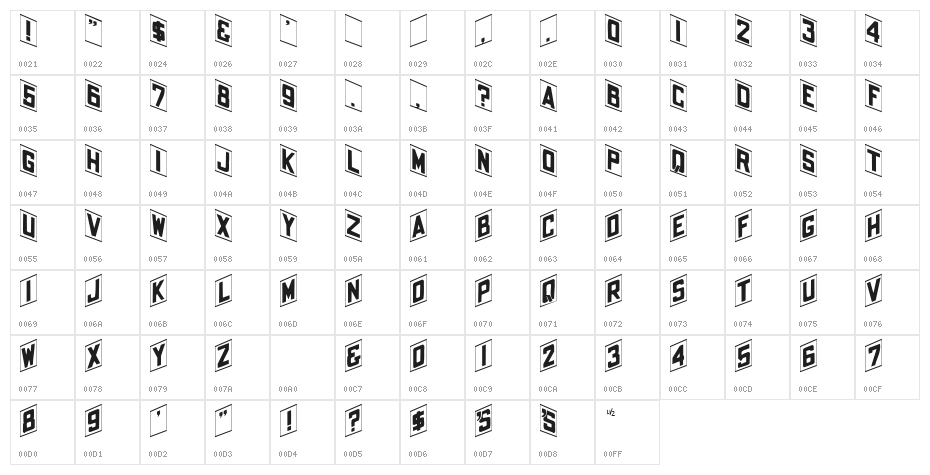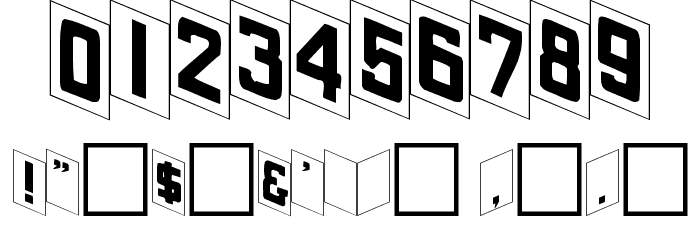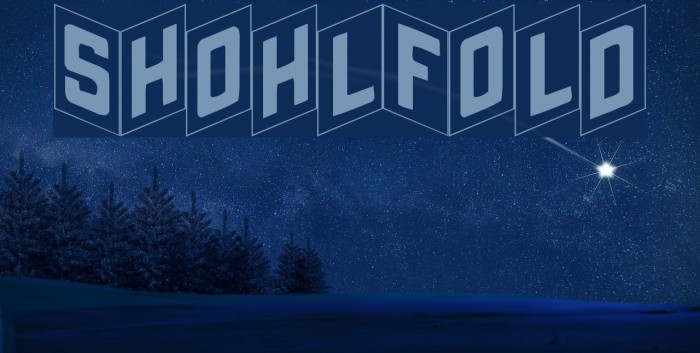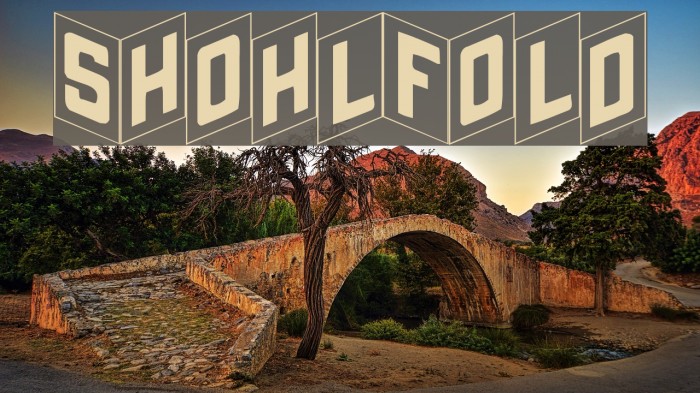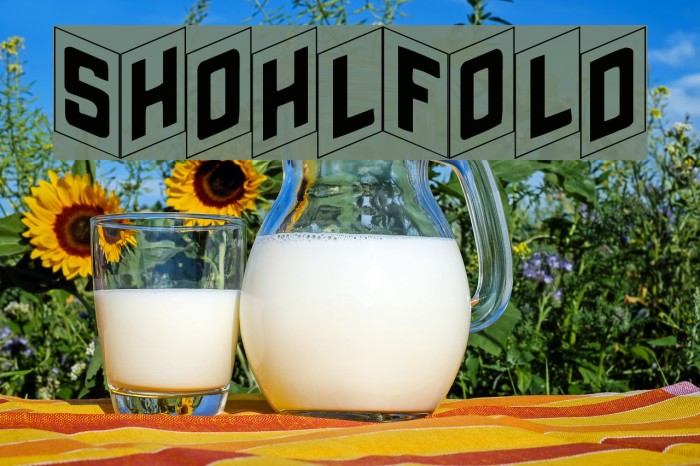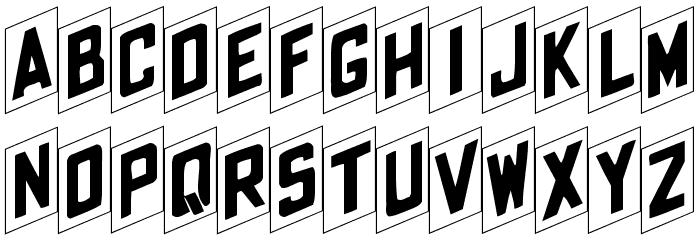
ShohlFold Font
ShohlFold Description
This font features a bold, three-dimensional design with a distinct shadow effect that gives each character a folded appearance. The uppercase letters are angular and geometric, creating a sense of depth and movement. The numbers and special characters follow the same style, maintaining consistency throughout the set. The font's unique perspective makes it stand out, ideal for eye-catching designs. Its structured form and bold presence make it suitable for modern and dynamic projects, where a strong visual impact is desired.
| Proposed Projects | Ideal for posters, logos, and branding materials that require a strong visual impact. |